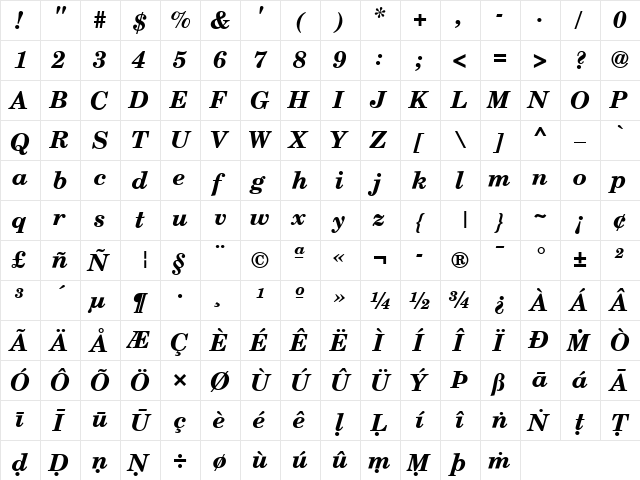
NCS CSXpali ItalicBold
Design Context for NCS CSXpali Typeface
NCS CSXpali is a composed and adaptable typeface that performs quietly and consistently across a wide range of design contexts. Its italic angle brings a sense of urgency and motion to the letterforms. The heavy weight commands attention and anchors typographic hierarchies.
Pro Tip: Use NCS CSXpali for emphasis, pull quotes, and subheadings where its slanted energy can add rhythm to the layout.